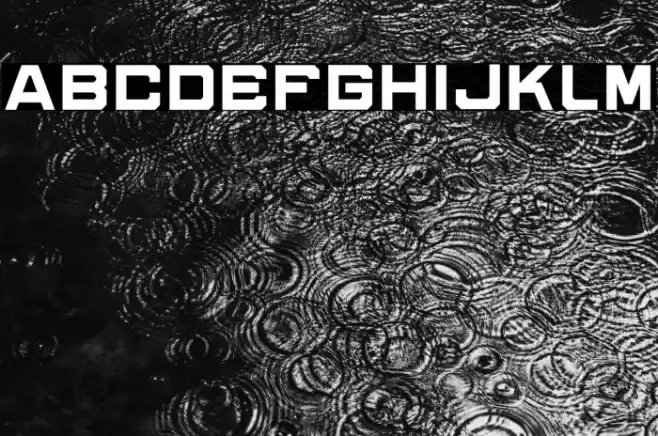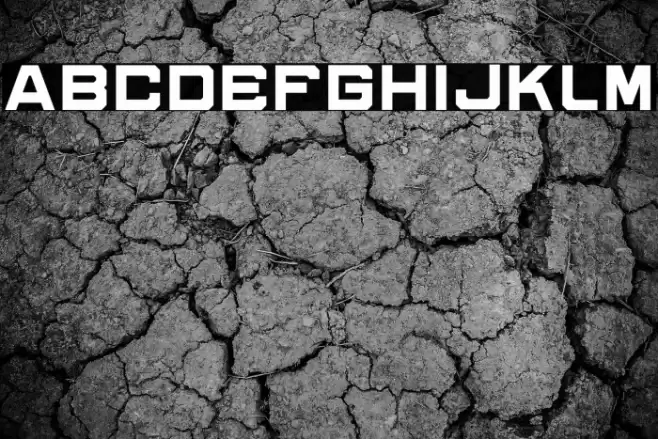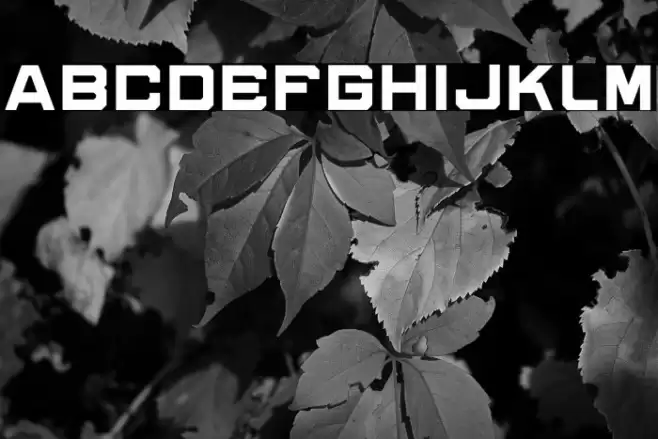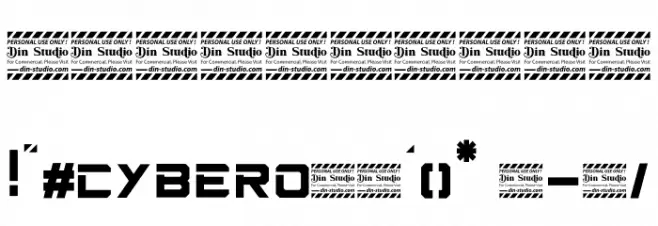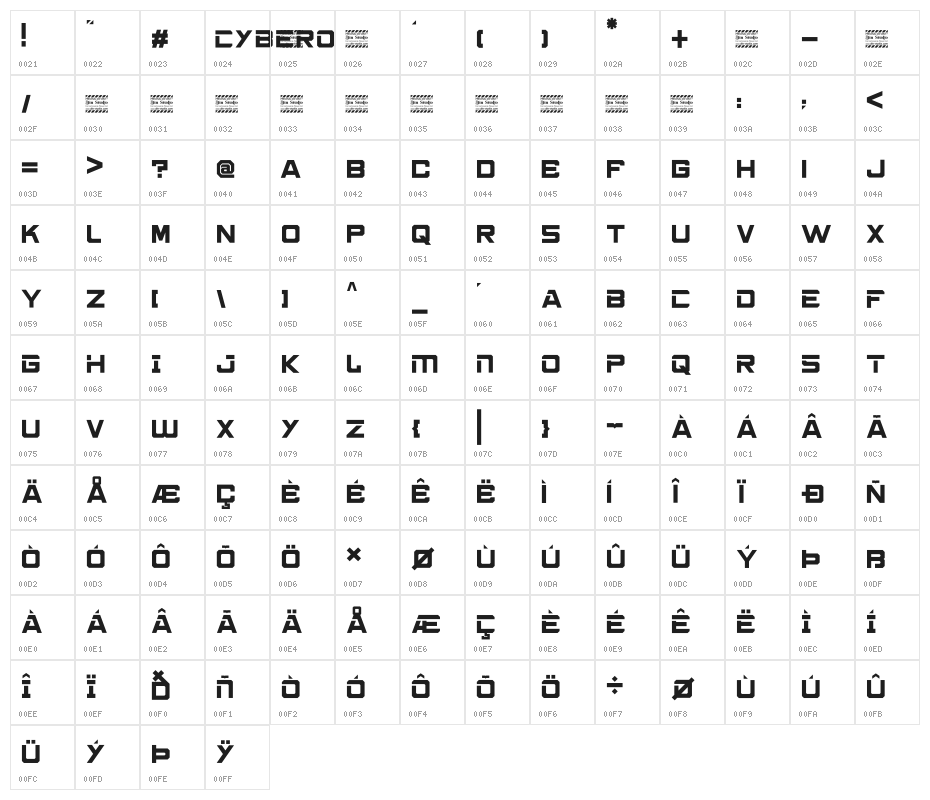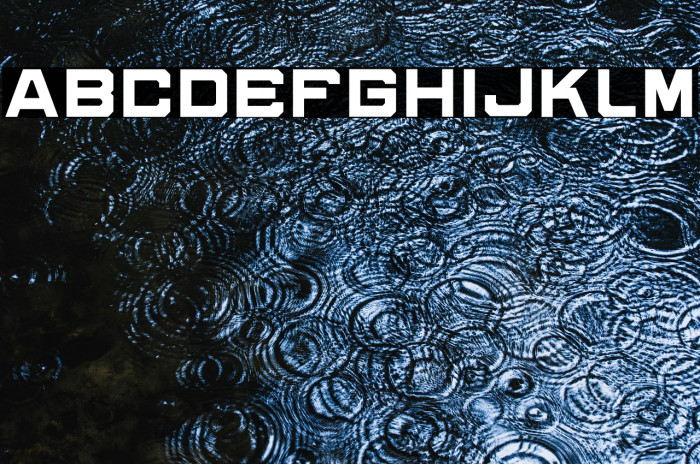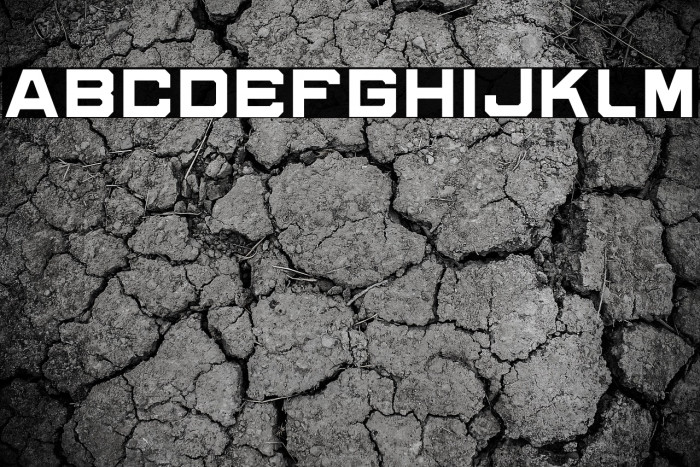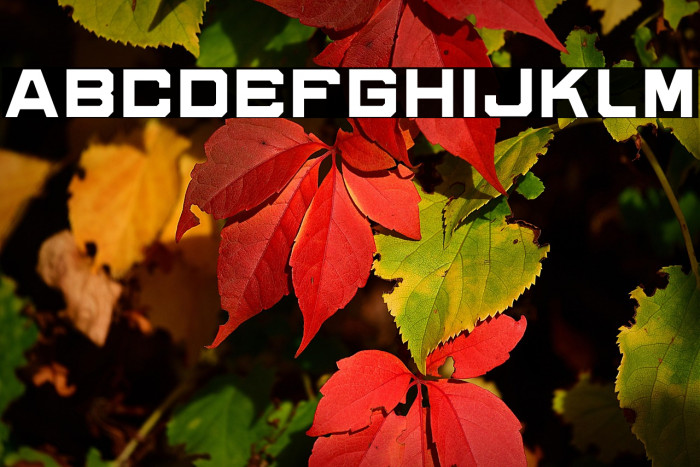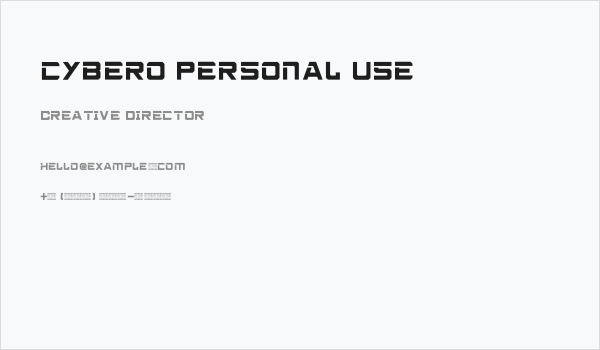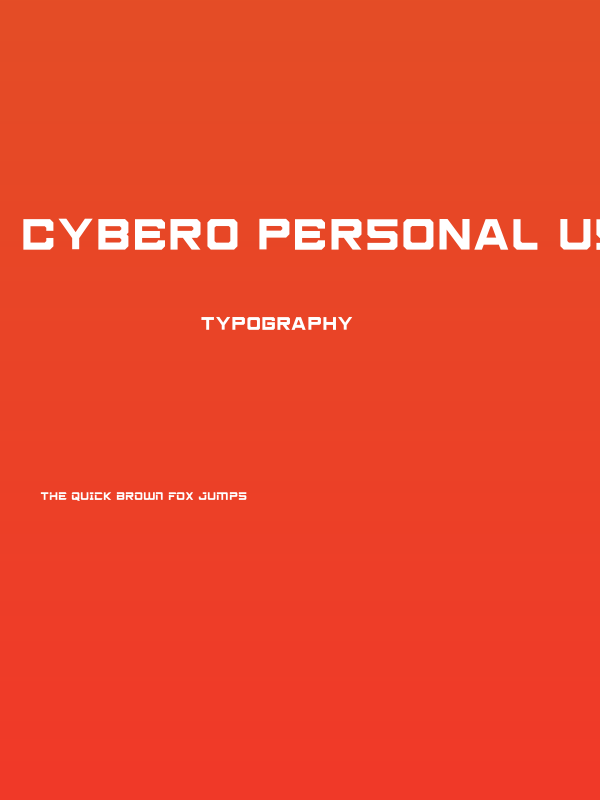
cybero Personal Use Font
cybero Personal Use Description
This font features a bold, futuristic design with a geometric structure that emphasizes sharp angles and clean lines. The uppercase letters are distinct with a blocky appearance, while the lowercase letters maintain a similar style, ensuring consistency across different cases. Numbers and special characters are designed to match the overall aesthetic, making them suitable for digital and modern themes. The font's unique style is ideal for projects that require a contemporary and tech-inspired look.
A bold, geometric font with a futuristic and tech-inspired design from Uncategorized fonts.
- Font: cybero Personal Use
- Proposed Projects: Ideal for technology branding, video game titles, sci-fi posters, and digital media projects.